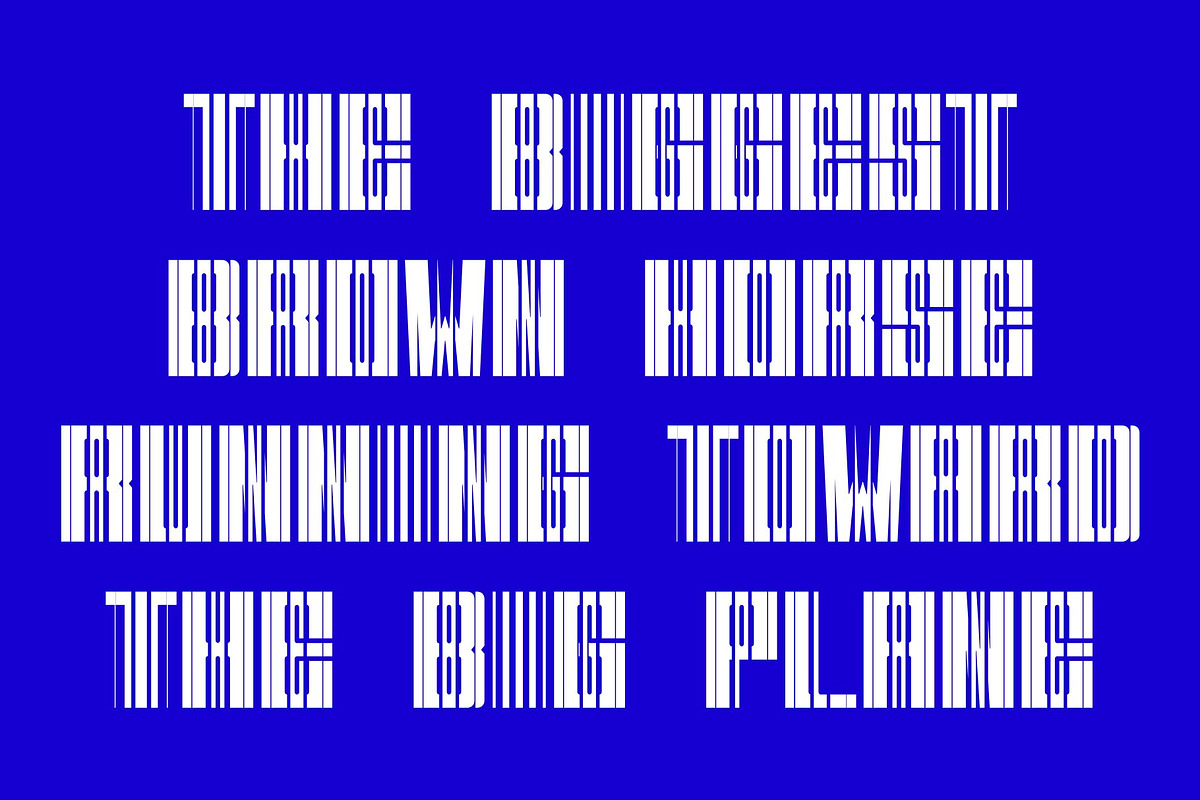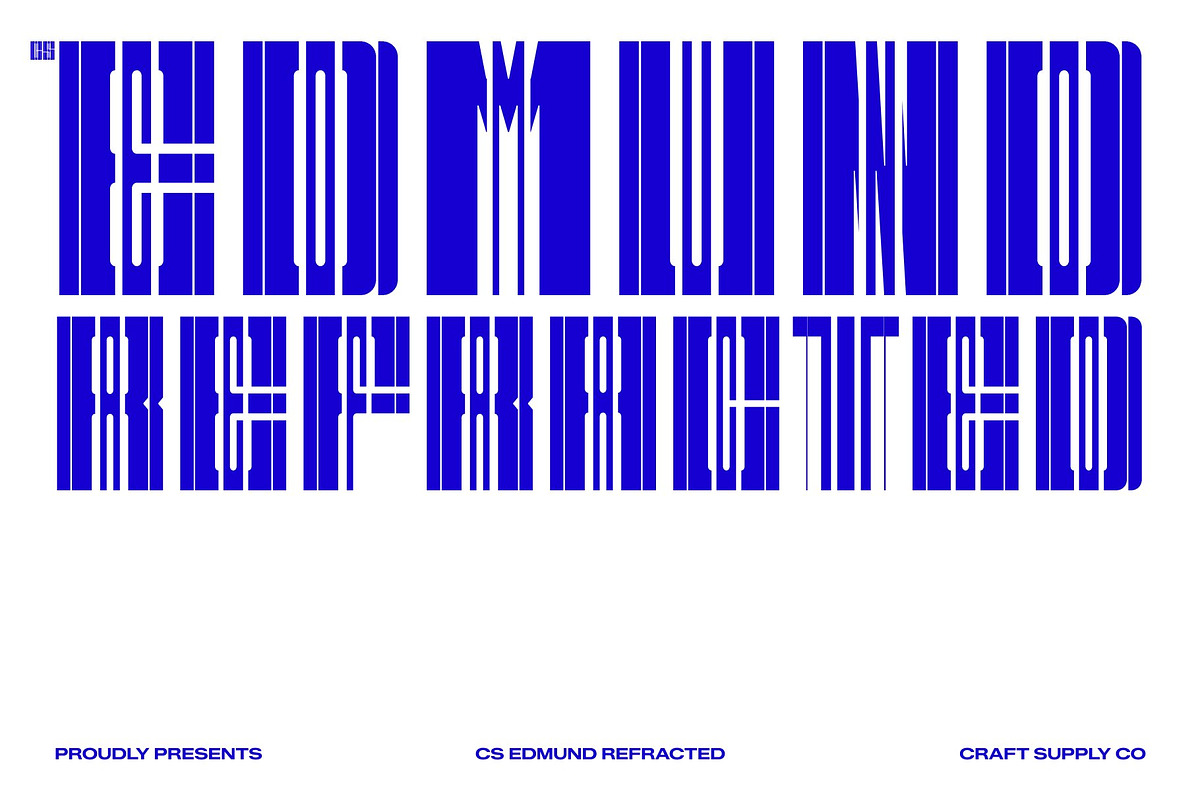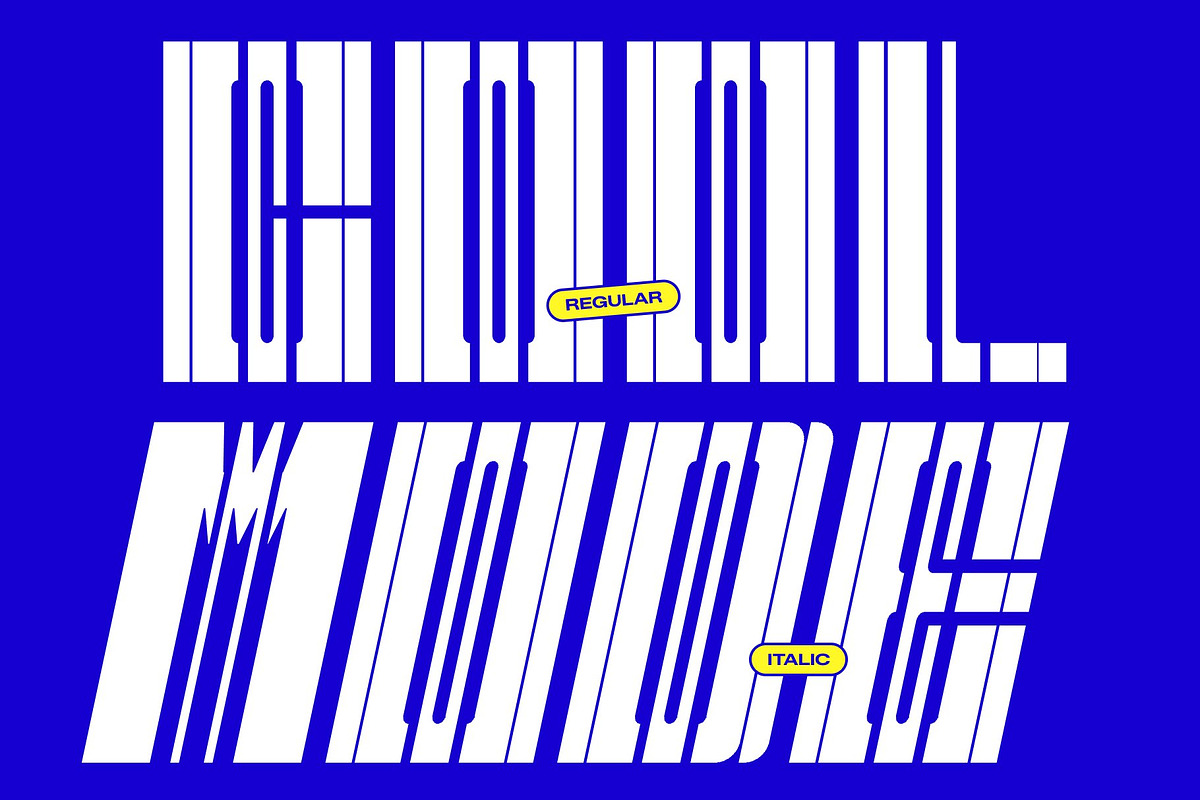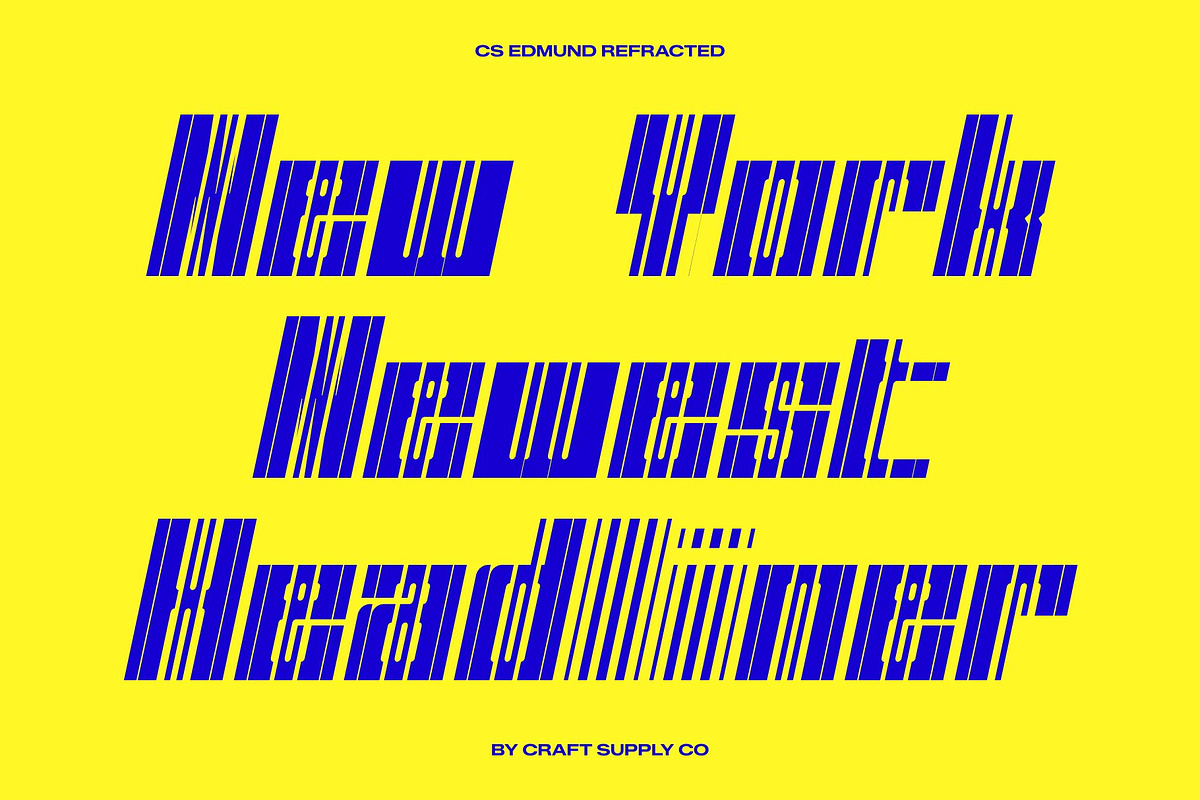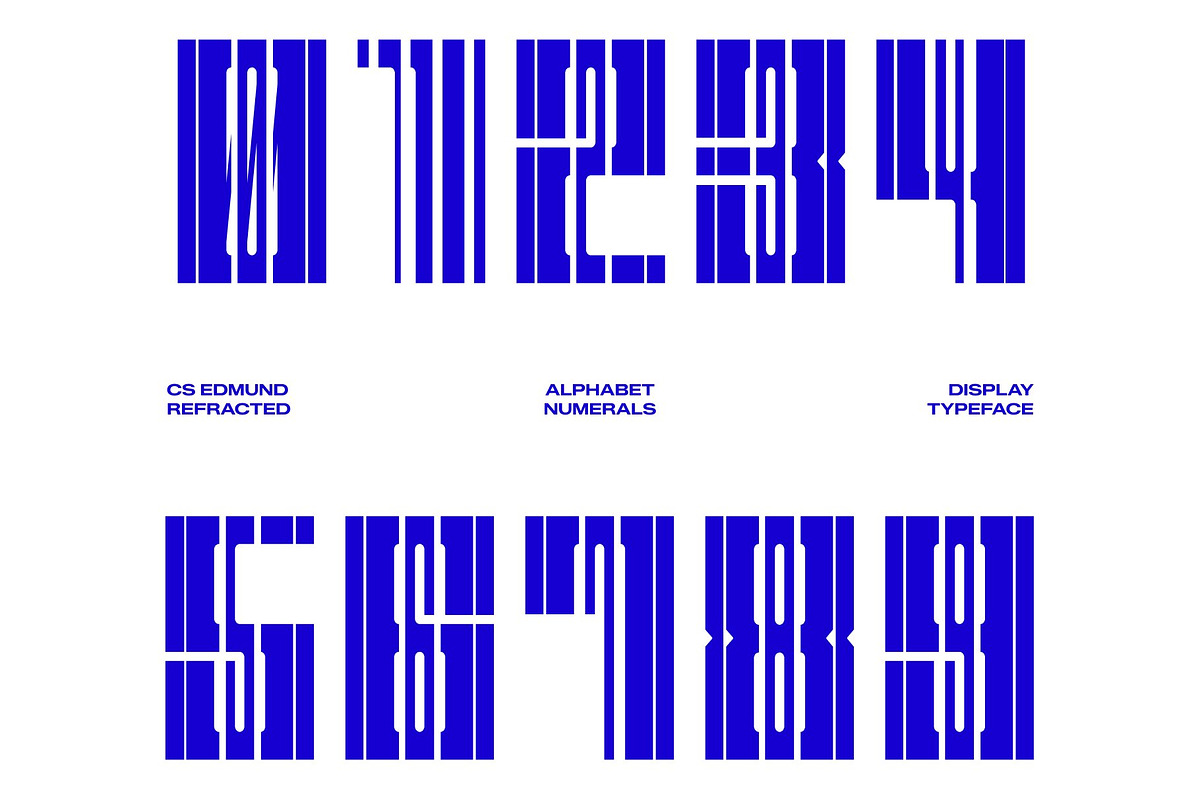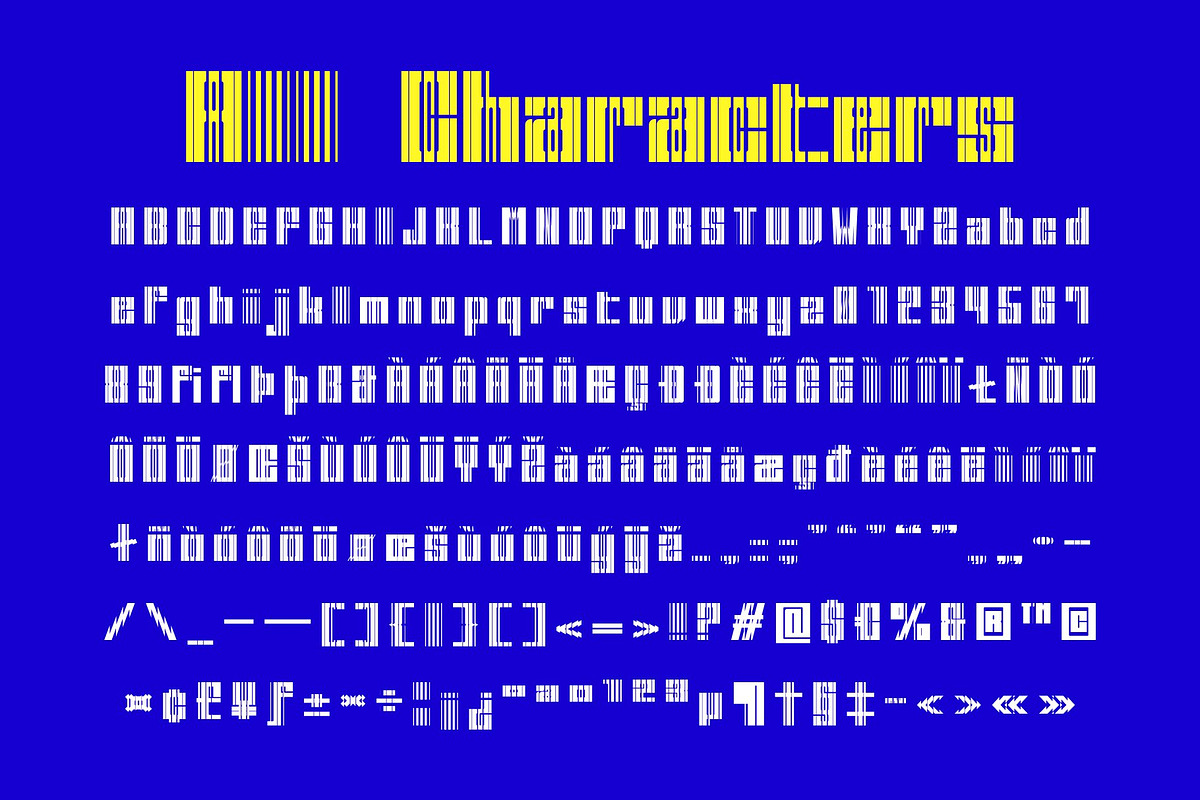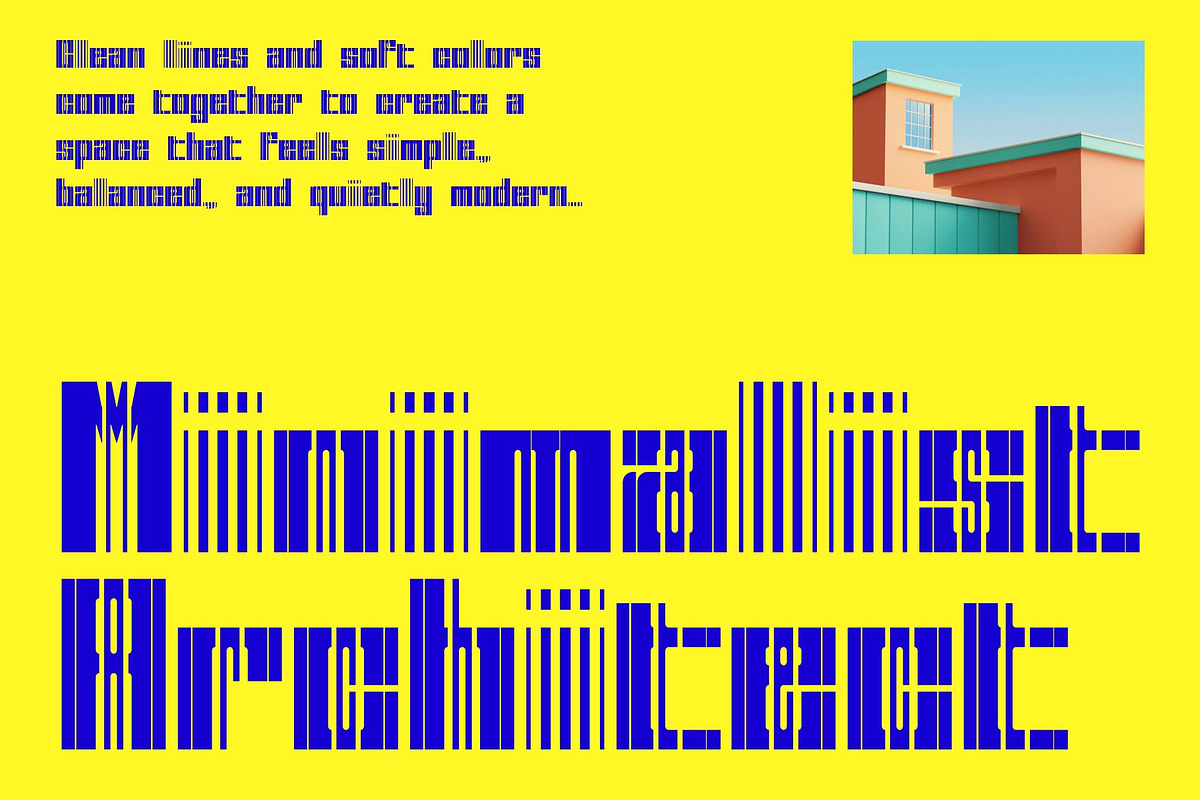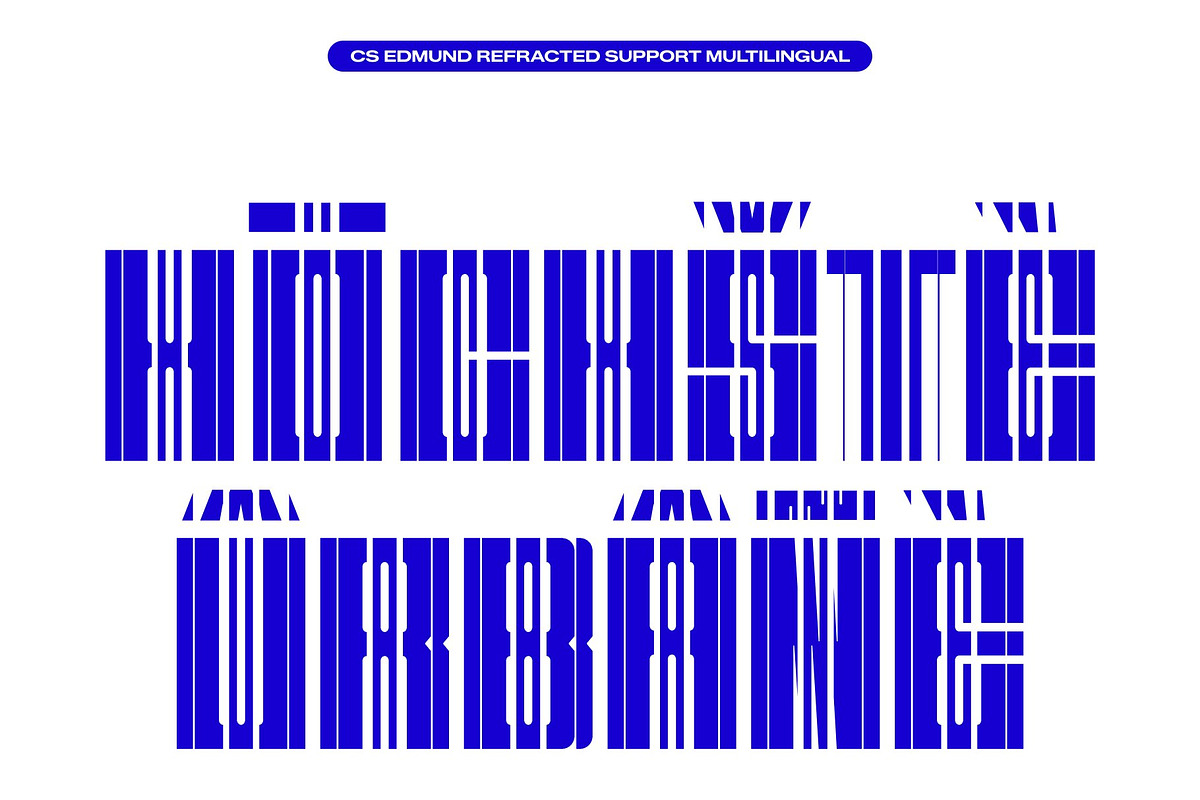
CS Edmund Refracted
CS Edmund Refracted – Bold Condensed Sans Serif Font: Where Futuristic Glitch Meets Bold Precision
Fragmented Geometric Forms with Dynamic Energy This is a bold condensed display font designed with striking refracted effects inspired by glitch like light distortions. Its characters appear cut, fragmented, and sliced with sharp geometric precision, creating a futuristic and experimental visual identity. The condensed structure intensifies its strong presence, making every composition feel powerful, energetic, and visually commanding.
Glitch-Inspired Style with Technological Edge This font delivers a typographic style filled with digital energy and cyber inspired aesthetics. The fractured details evoke neon reflections, technological interference, and futuristic motion, giving the font a bold and innovative personality perfect for contemporary creative projects.
Condensed Structure with Strong Display Impact This font combines narrow proportions with expressive distortion effects to create a compact yet attention grabbing appearance. Its clean geometry maintains readability while preserving an edgy and experimental atmosphere ideal for high-visibility designs.
Perfect for Gaming, Music Posters, and Futuristic Branding This font perfect for electronic music and festival posters, technology and startup branding, gaming and e-sports visuals, motion graphics, futuristic UI, and experimental album art. Its glitch-inspired forms and refracted detailing make it ideal for logos, promotional graphics, digital campaigns, and cyber-themed creative projects.